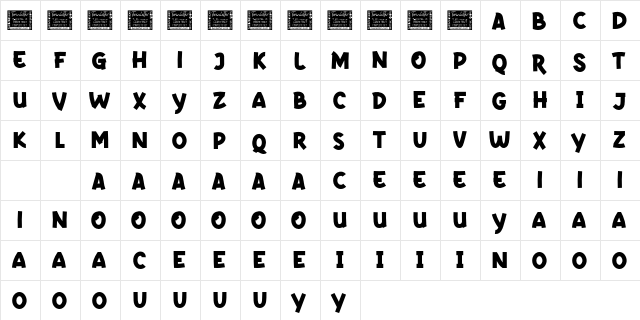
Aquatic Personal Use
Design Context for Aquatic Typeface
Aquatic takes a measured approach to typography — its balanced proportions and neutral character make it a reliable workhorse for both digital and print work.